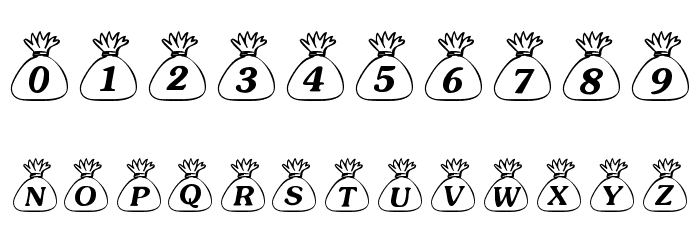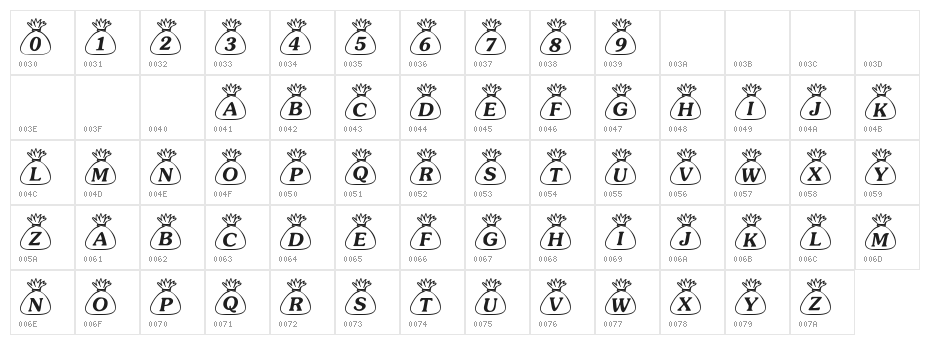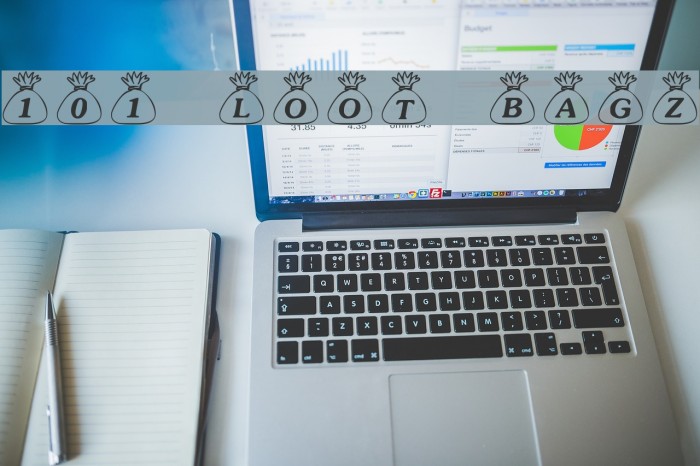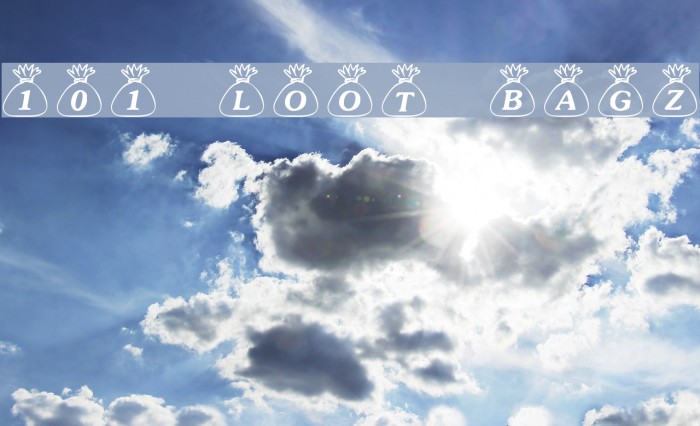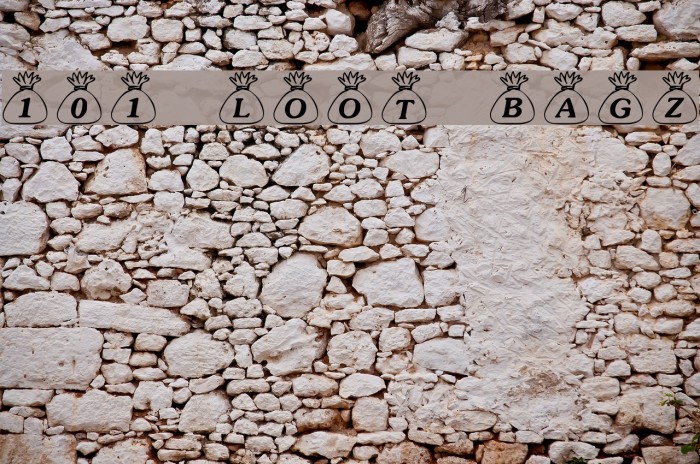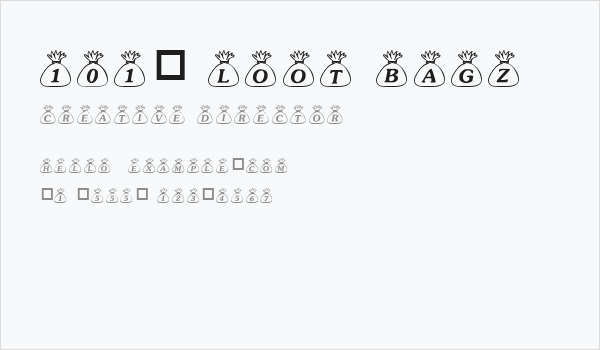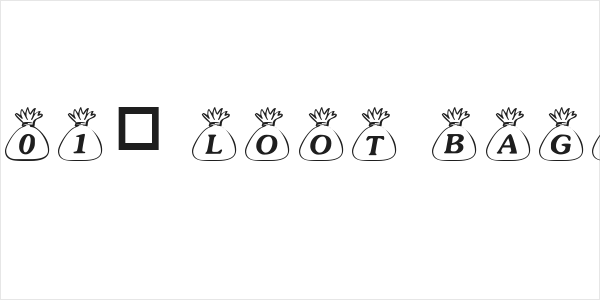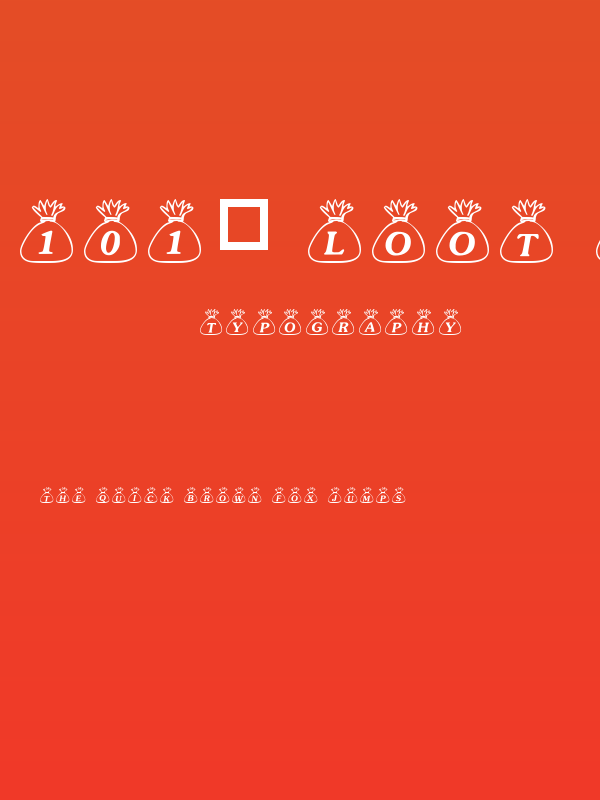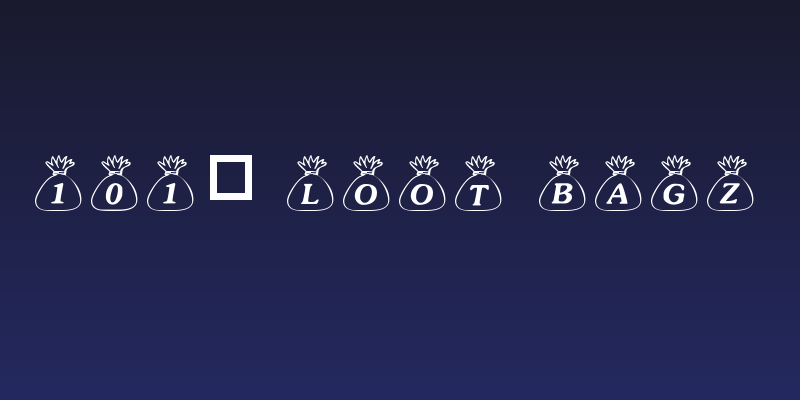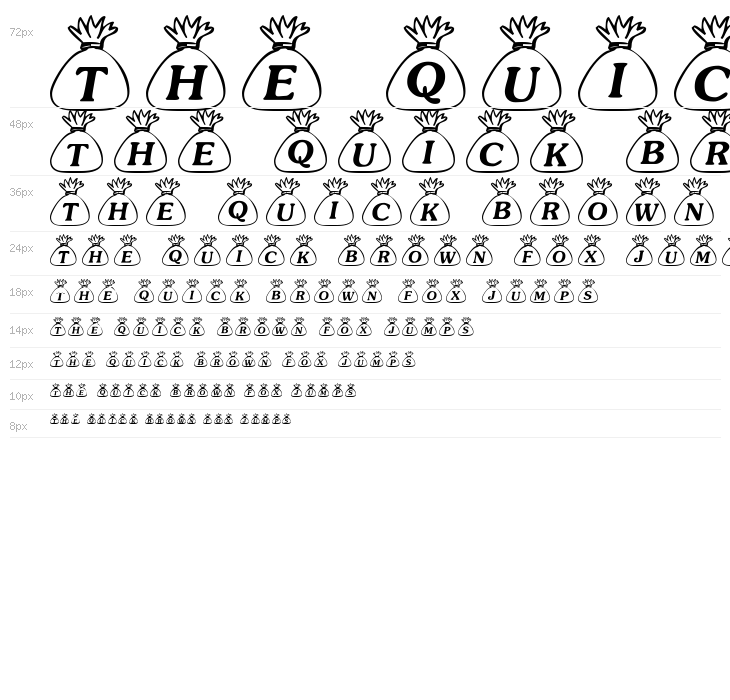
101! Loot BagZ Font
This playful and decorative font features characters enclosed within stylized loot bags, adding a whimsical touch to any design. Each letter and number is bold and clear, making them easily readable despite the unique encasement. The font combines a sense of fun with practicality, making it suitable for a variety of creative projects. The consistent design of the loot bags provides a cohesive look, while the bold characters ensure visibility. This font is perfect for projects that require a touch of humor or a playful theme, such as children's party invitations, game-themed posters, or playful branding materials.
A playful font with characters enclosed in stylized loot bags, perfect for whimsical designs.
• Proposed Projects: Ideal for children's party invitations, game-themed posters, playful branding, and creative projects.
• Category: Decorative/Display
• Bold: Yes
• Weight: Bold
• Width: Normal
• Character Spacing: Normal
• Contrast: Low
• Overall Style: Playful, Whimsical
• Use Case: Headlines, Logos, Posters